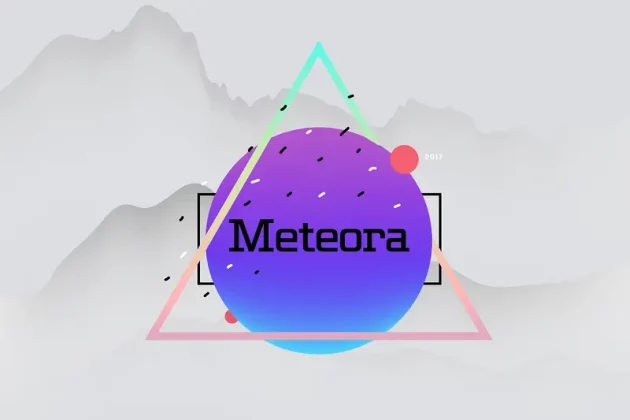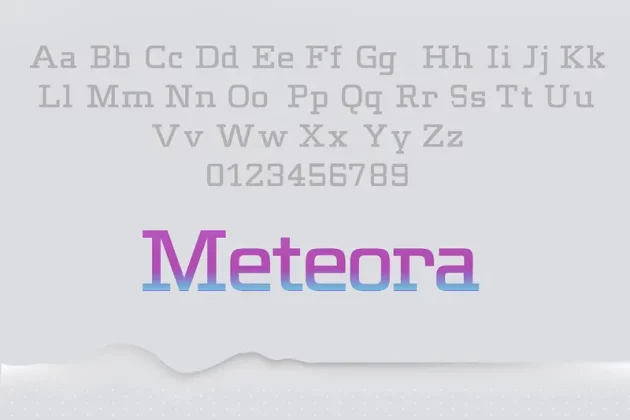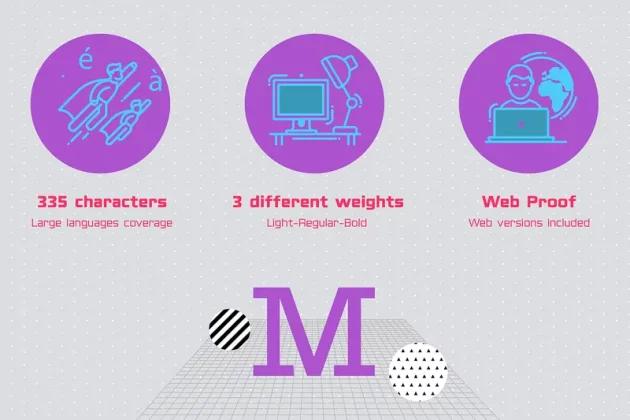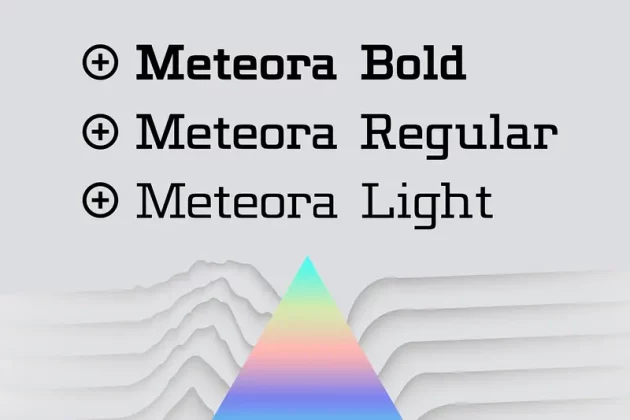
Meteora © Font
About Meteora © Font
We present Meteora, a modern slab serif originally coded in Metafont™ You can test our font for here https://www.dafont.com/meteora.font before buying it. Enjoy 🙂